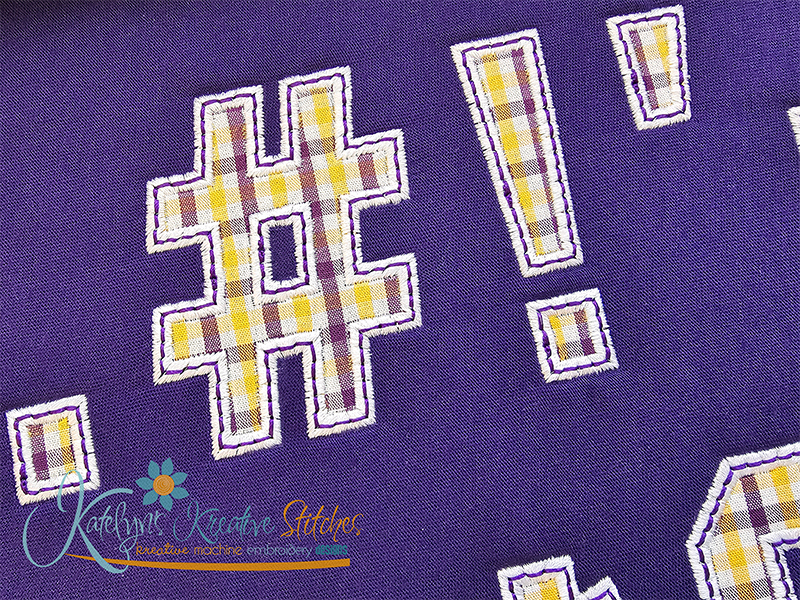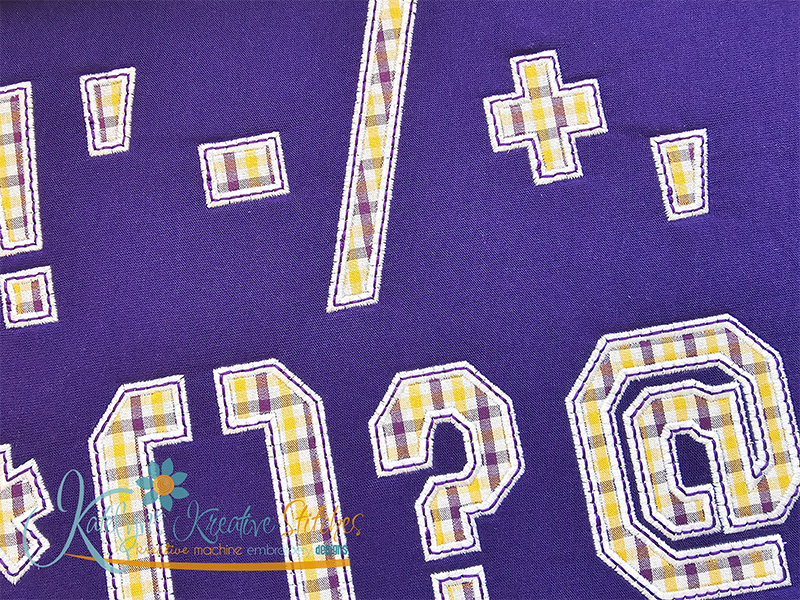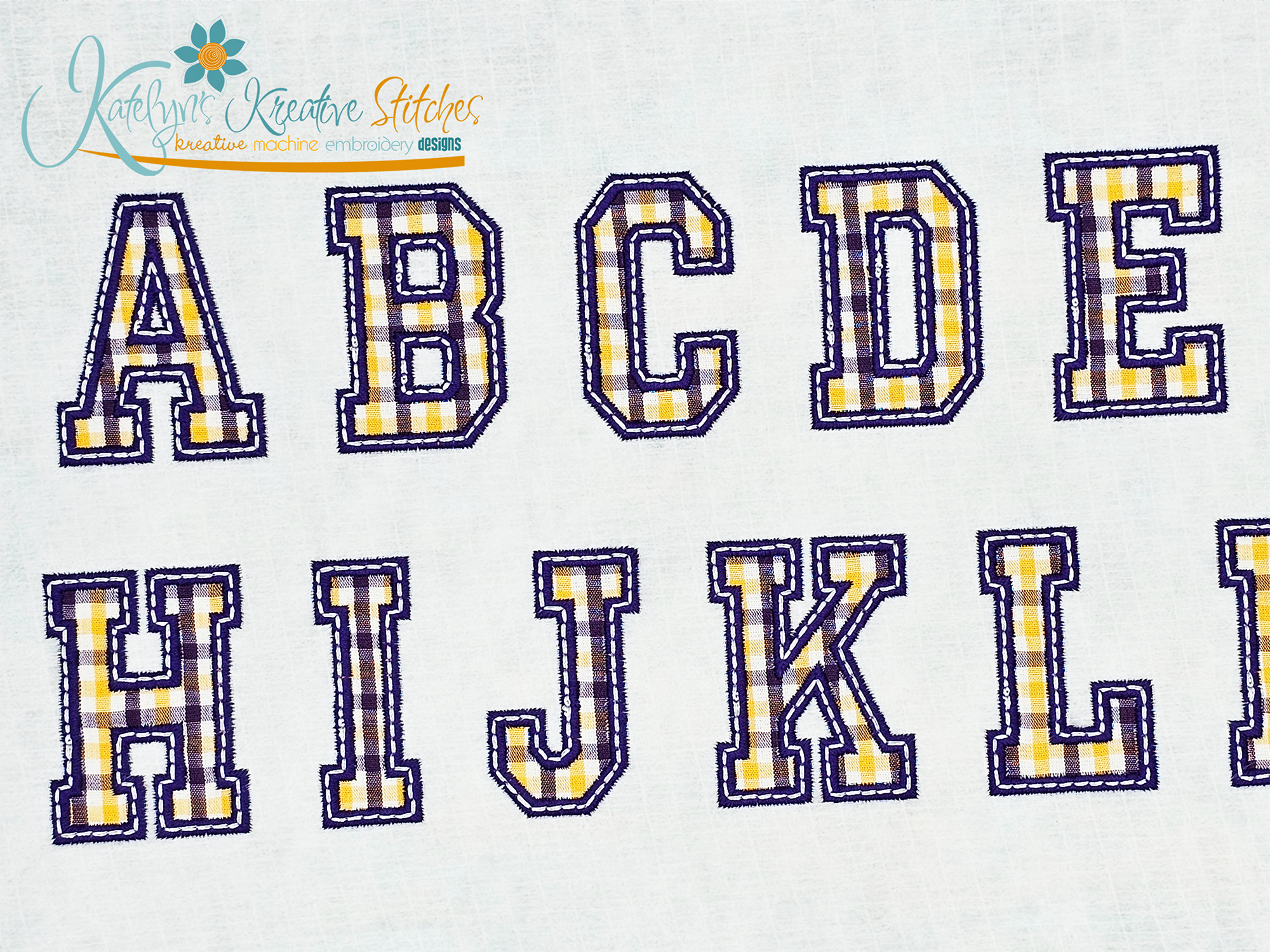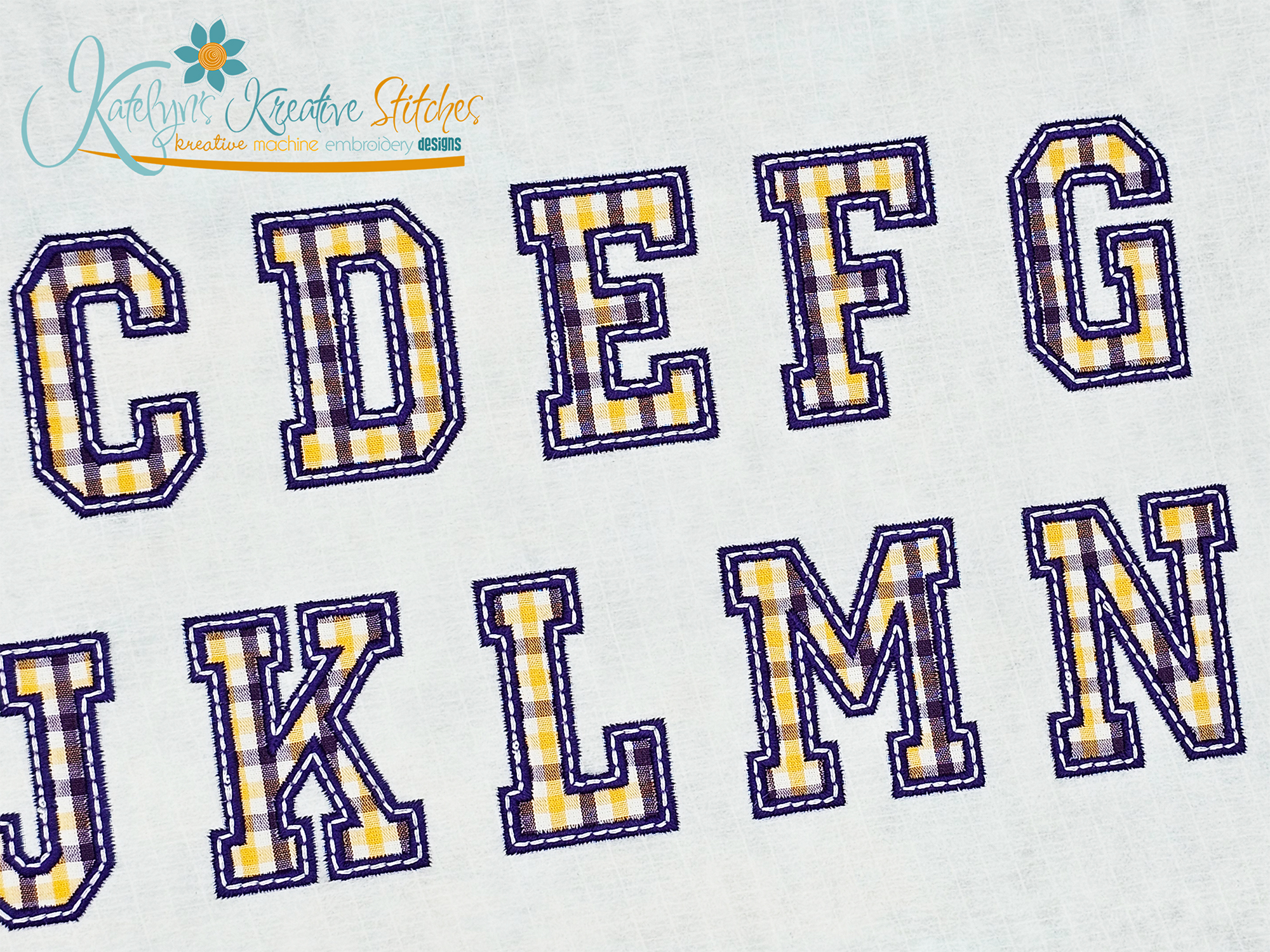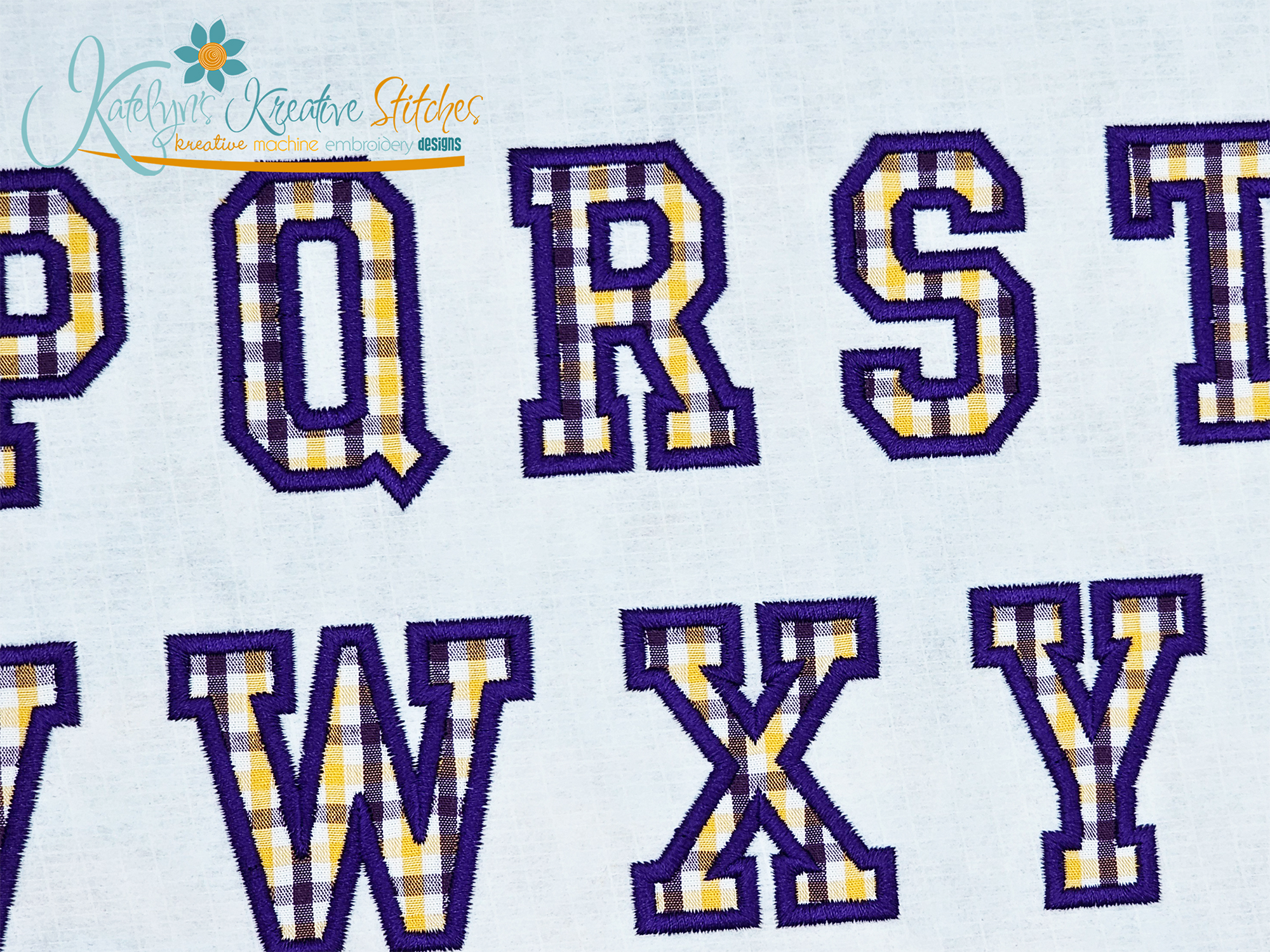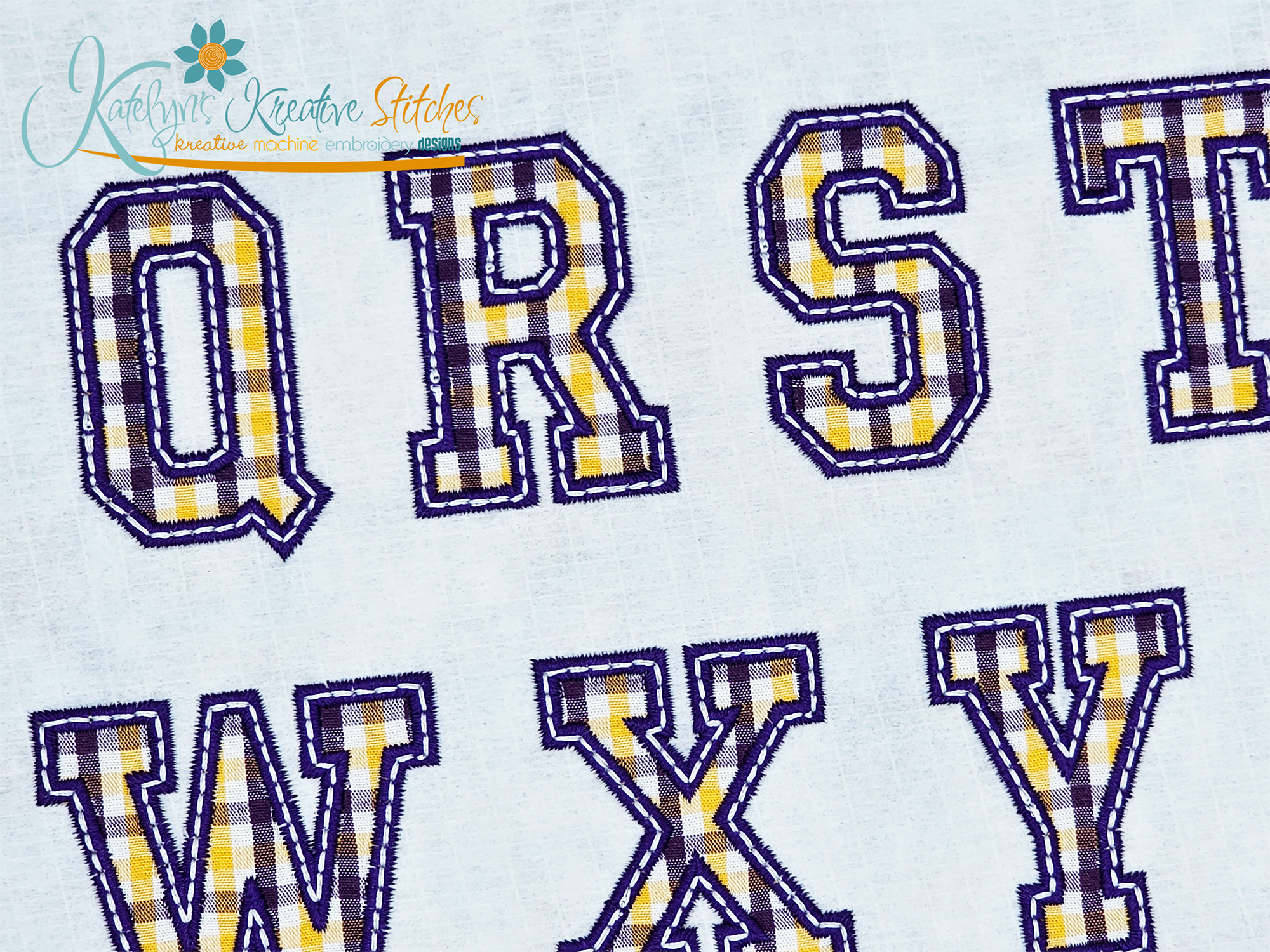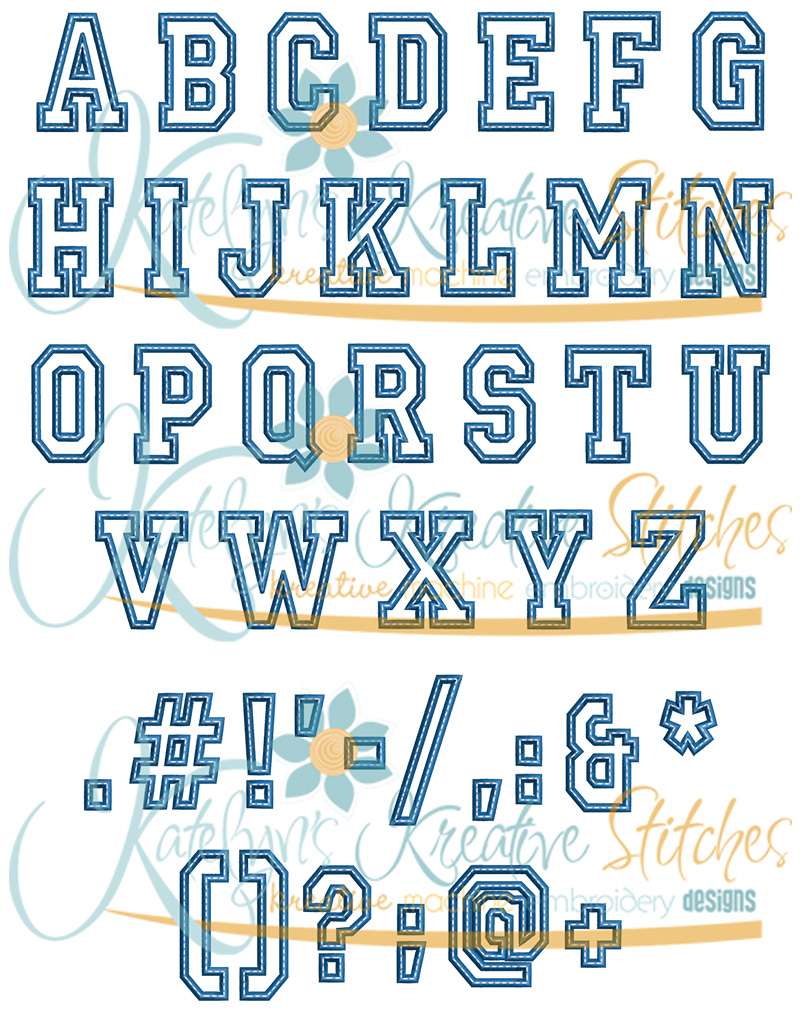
College Applique Font - 7 Sizes - Matches our Arched Collection
Our popular College Applique Font will include the 2, 3, 4, 5, 6, 7 and 8 inch sizes. Please keep in mind that our letters and special characters are manually digitized in proportion with each other, so the sizes are approximate. You'll receive all the upper case letters along with special characters. This applique font is done with a wide satin stitch and a optional triple stitch (or bean stitch) on the top. This is the same font used for all of our arched words. This font is a straight font, not a curved font. You'll need to merge the letters together using your own software.
This applique font is great for Sports Jersey's and Sweatshirts.